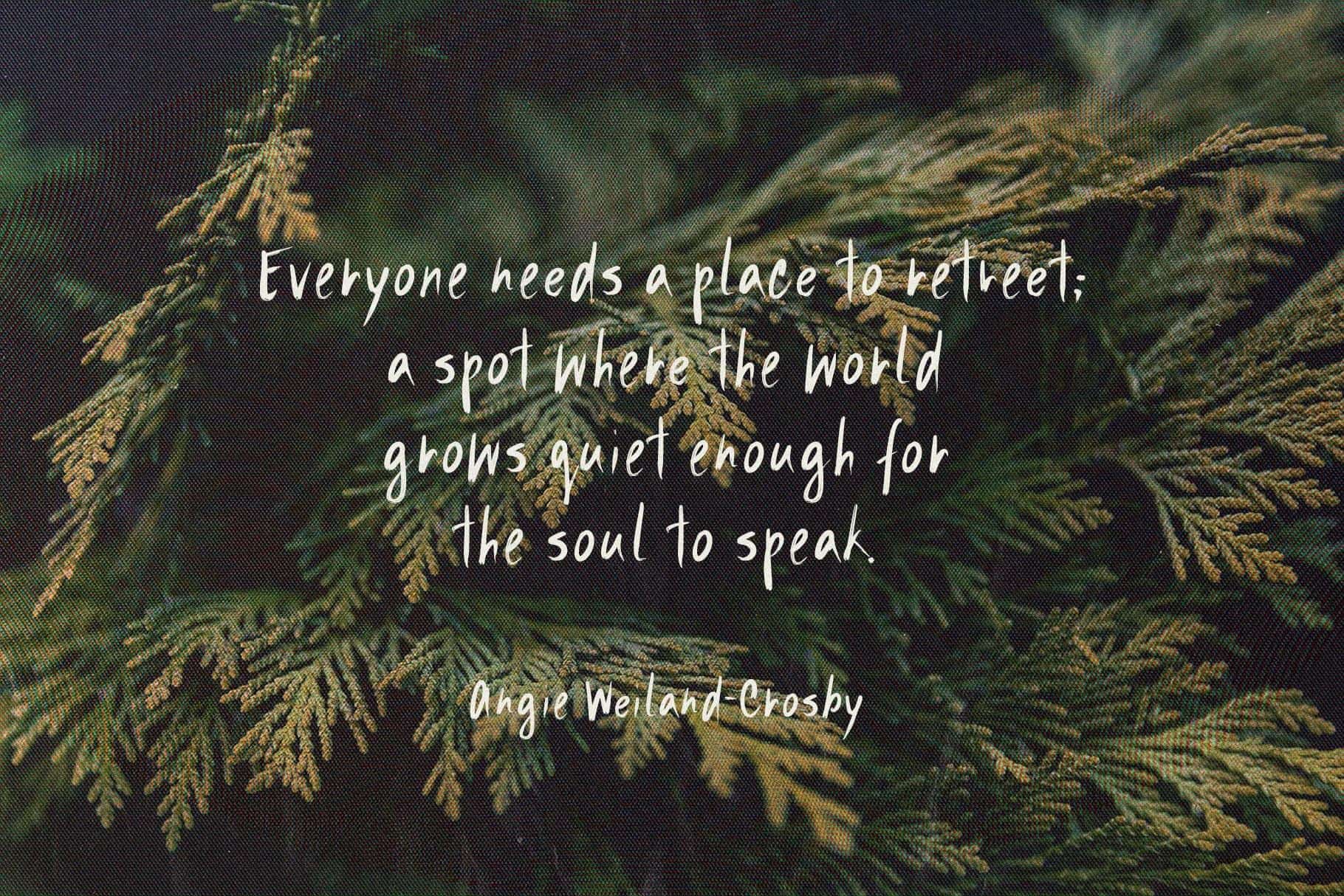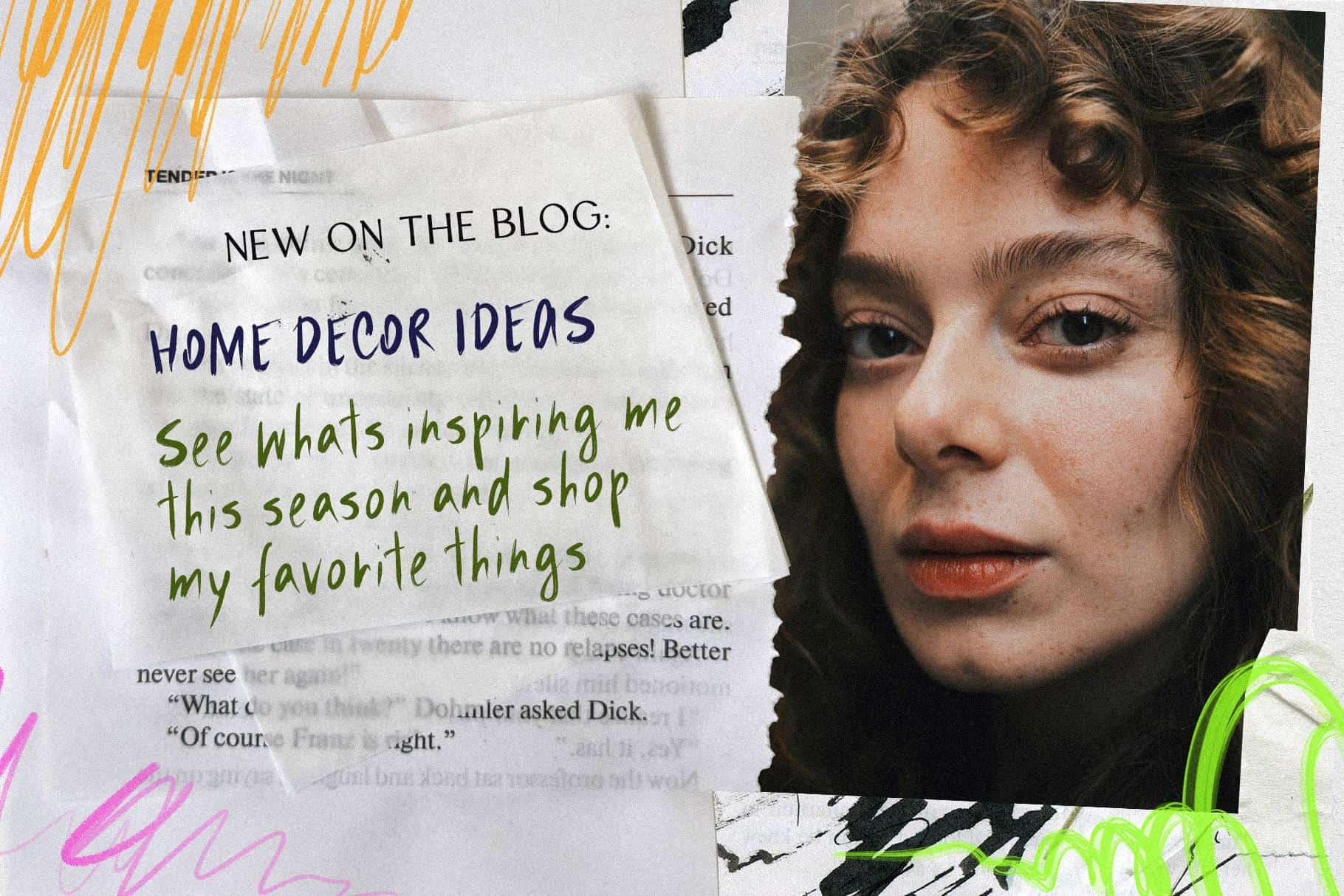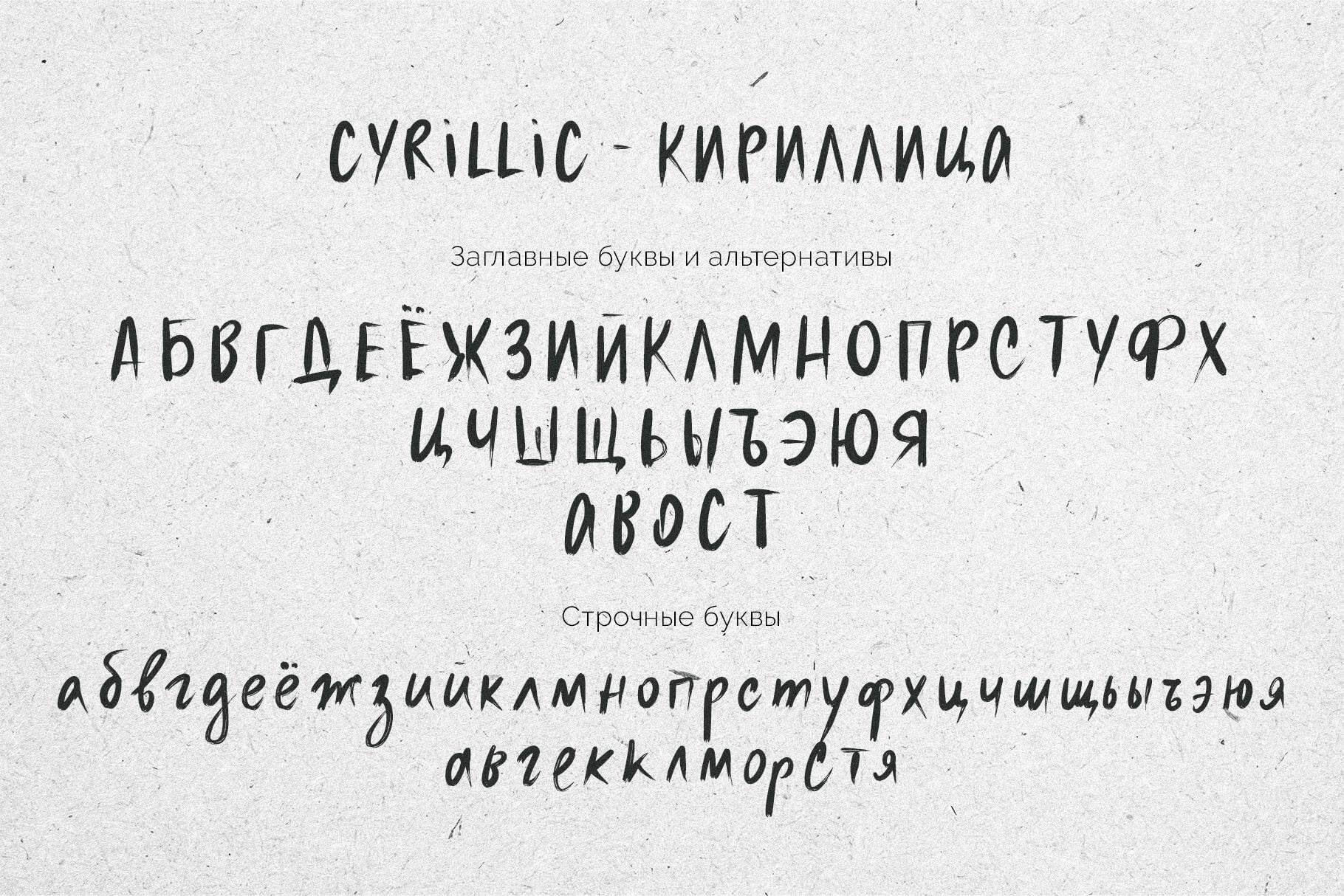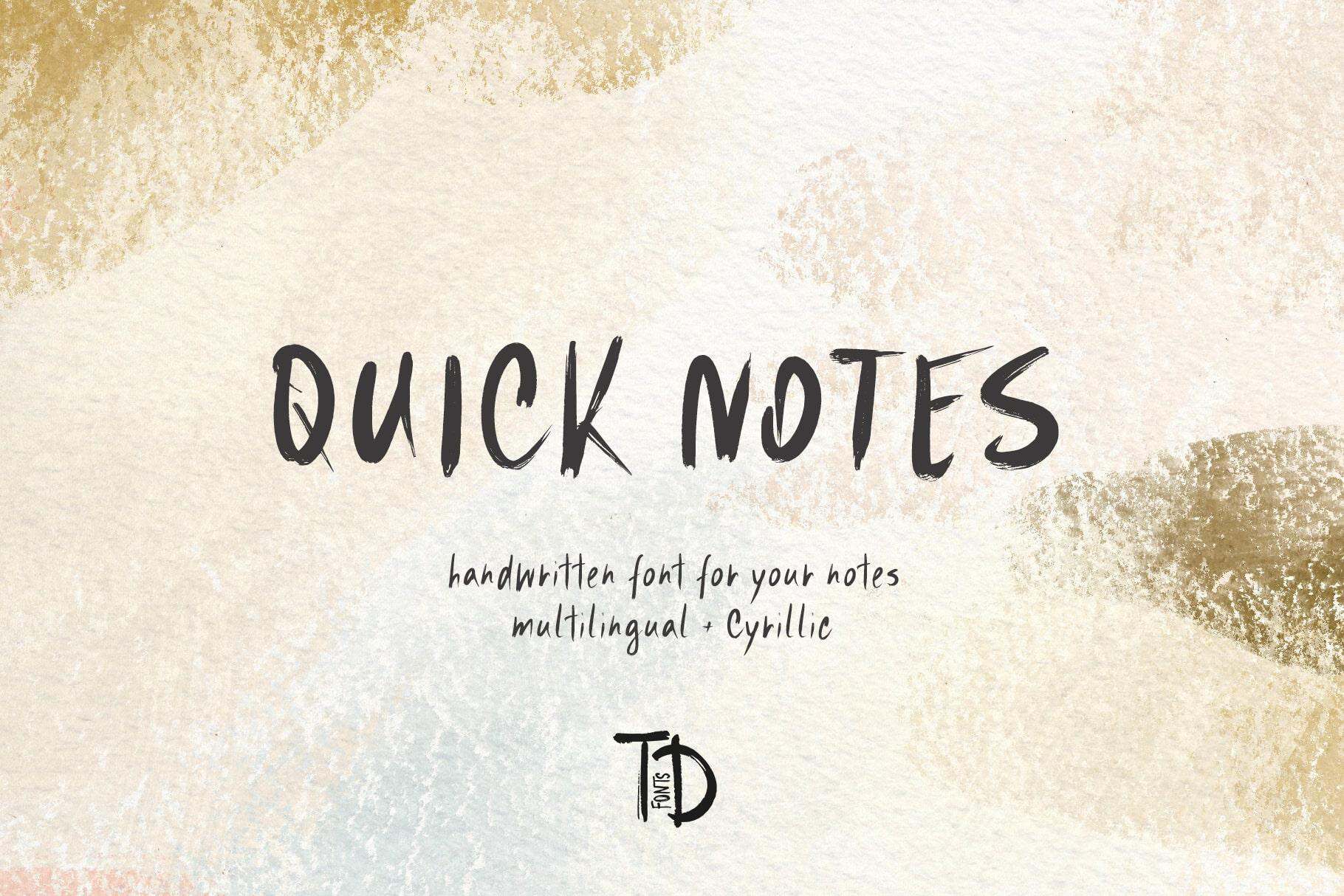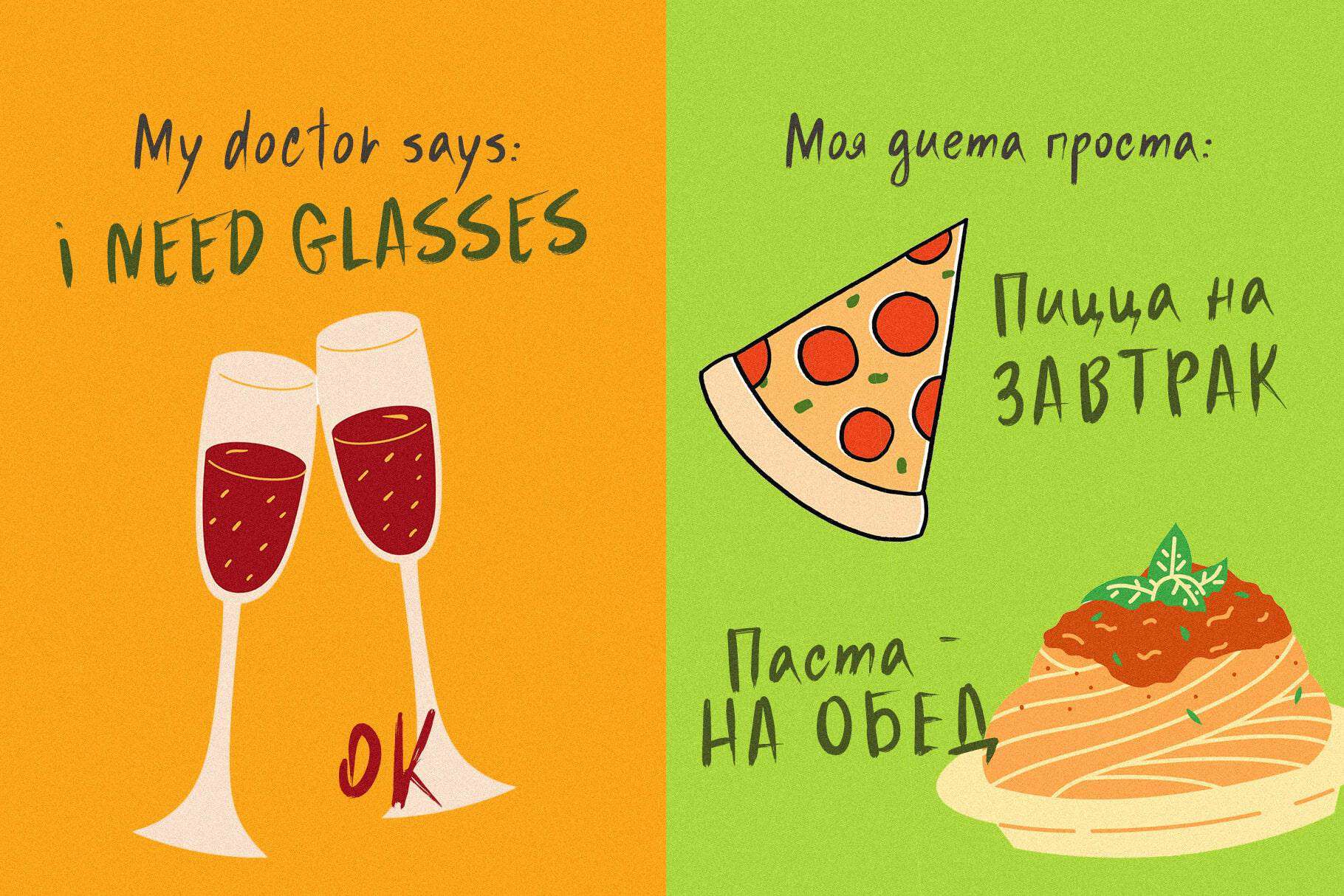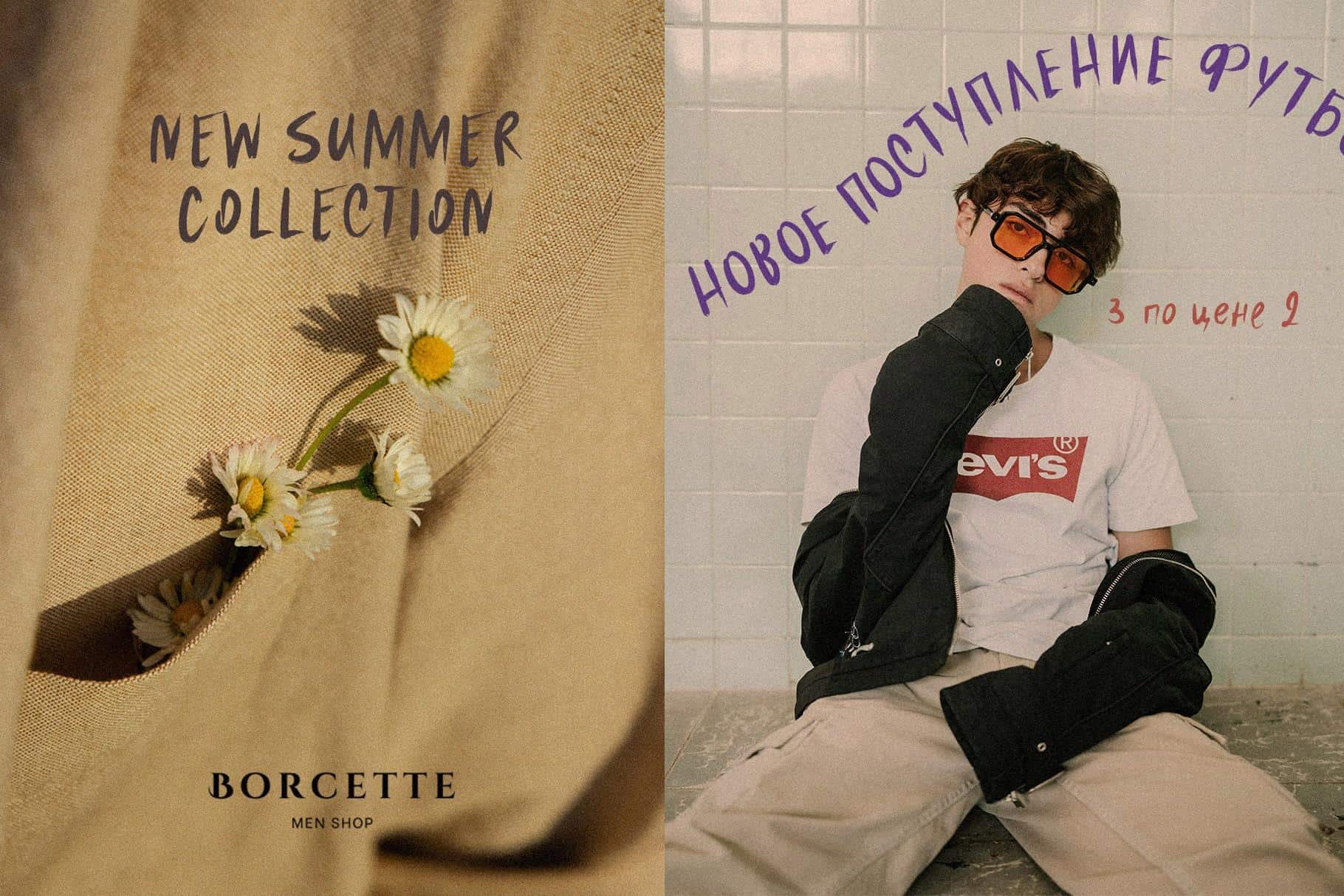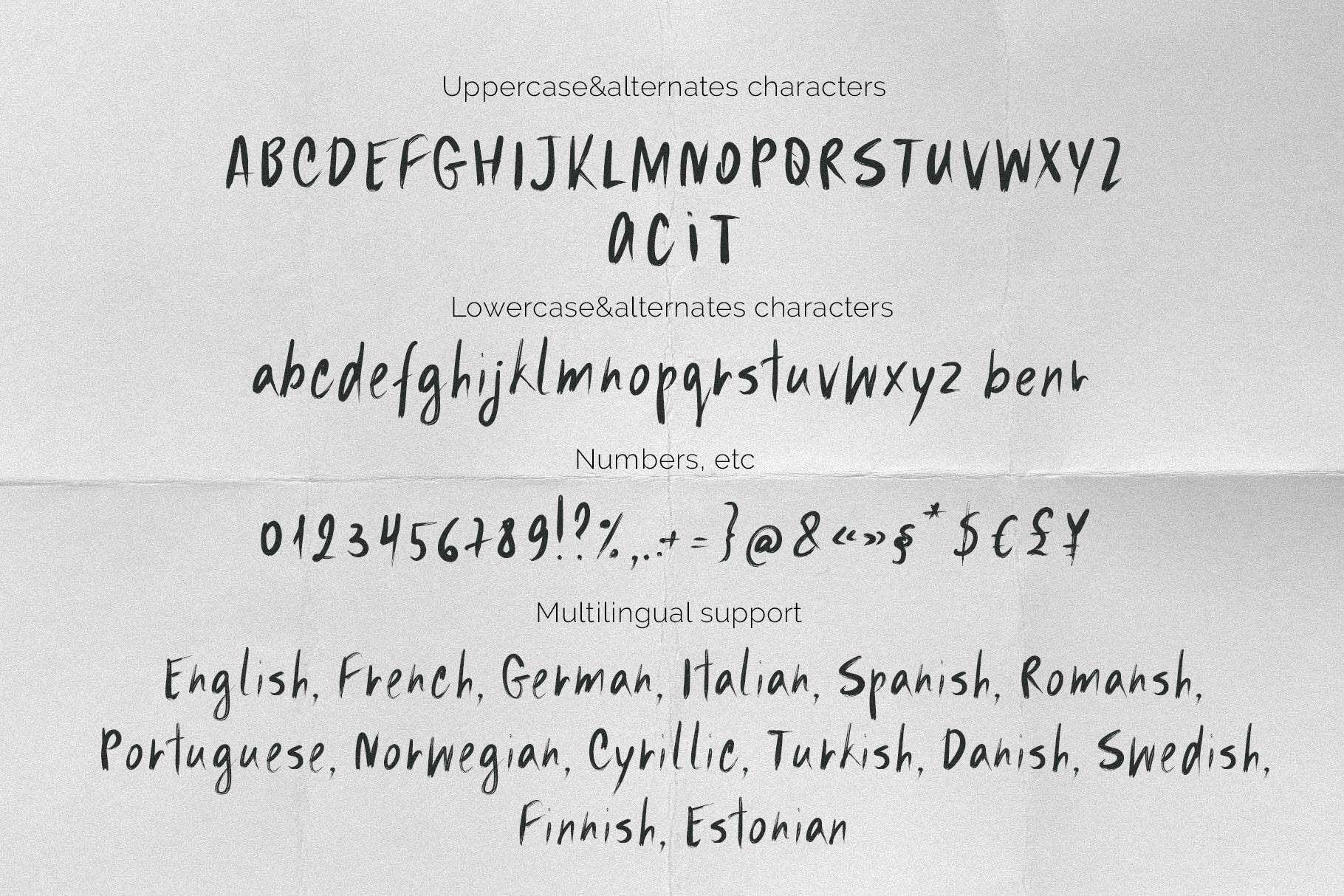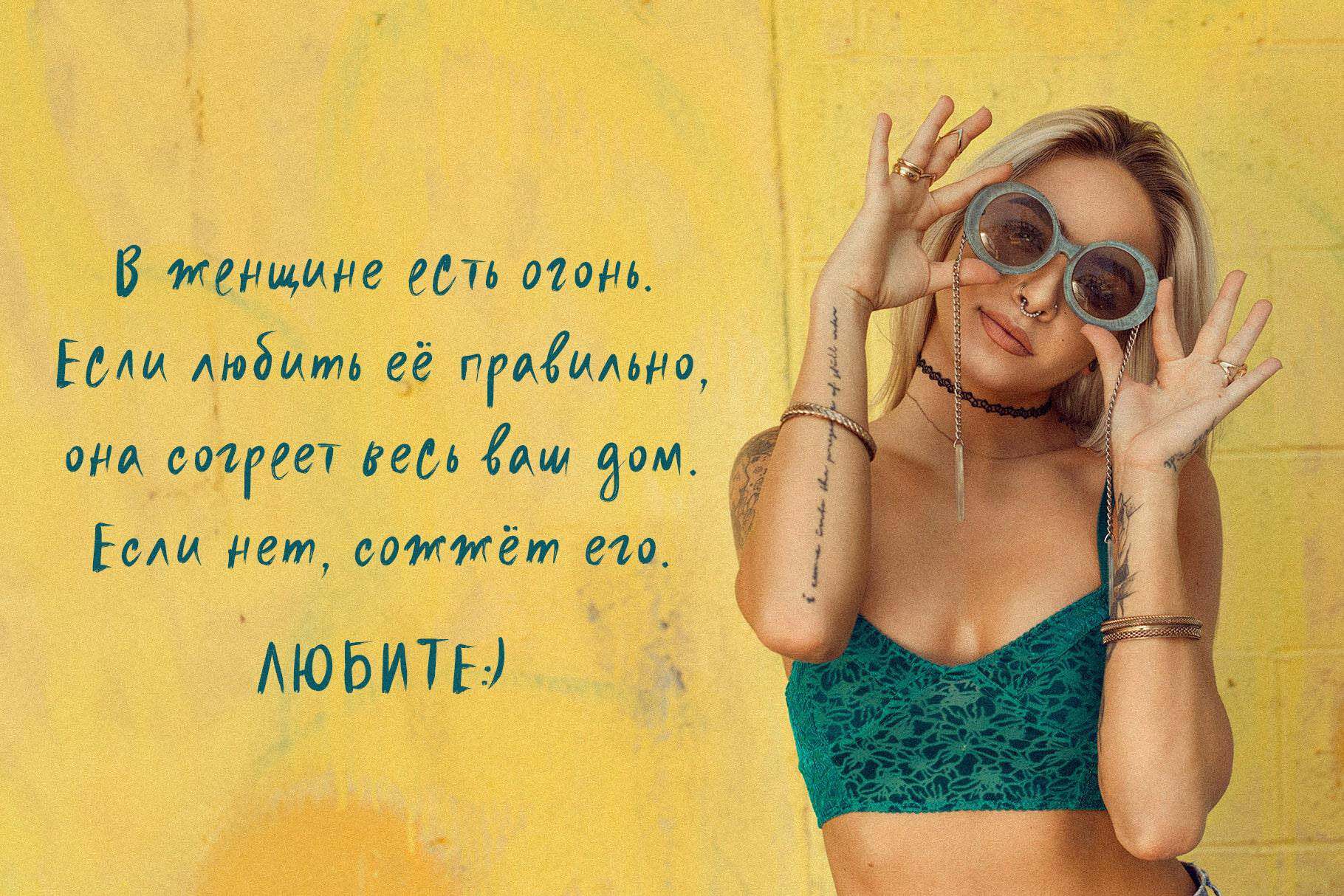
Quick notes handwritten font
Ditch the boring fonts and get ready to add some real personality to your designs with Quick notes!
This ain’t your grandma’s handwriting. Quick notes is a modern, unique handwritten font that captures the natural flow and ease of a quick note, but with a flourish that makes it stand out.
Multilingual support, including Cyrillic, lets you connect with audiences everywhere.
Here’s where Quick notes shines:
Social media posts: Make your stories and updates pop with a personal touch.
Website headers & titles: Grab attention with headlines that feel effortless and cool.
DIY projects: Craft invitations, greeting cards, and more with a touch of warmth.
Basically anything! Quick notes adds instant personality to your designs.
Quick notes has extensive language support, it includes English, French, German, Italian, Spanish, Portuguese, Danish, Norwegian, Swedish, Finnish, Estonian, Romansh, Turkish, Cyrillic.